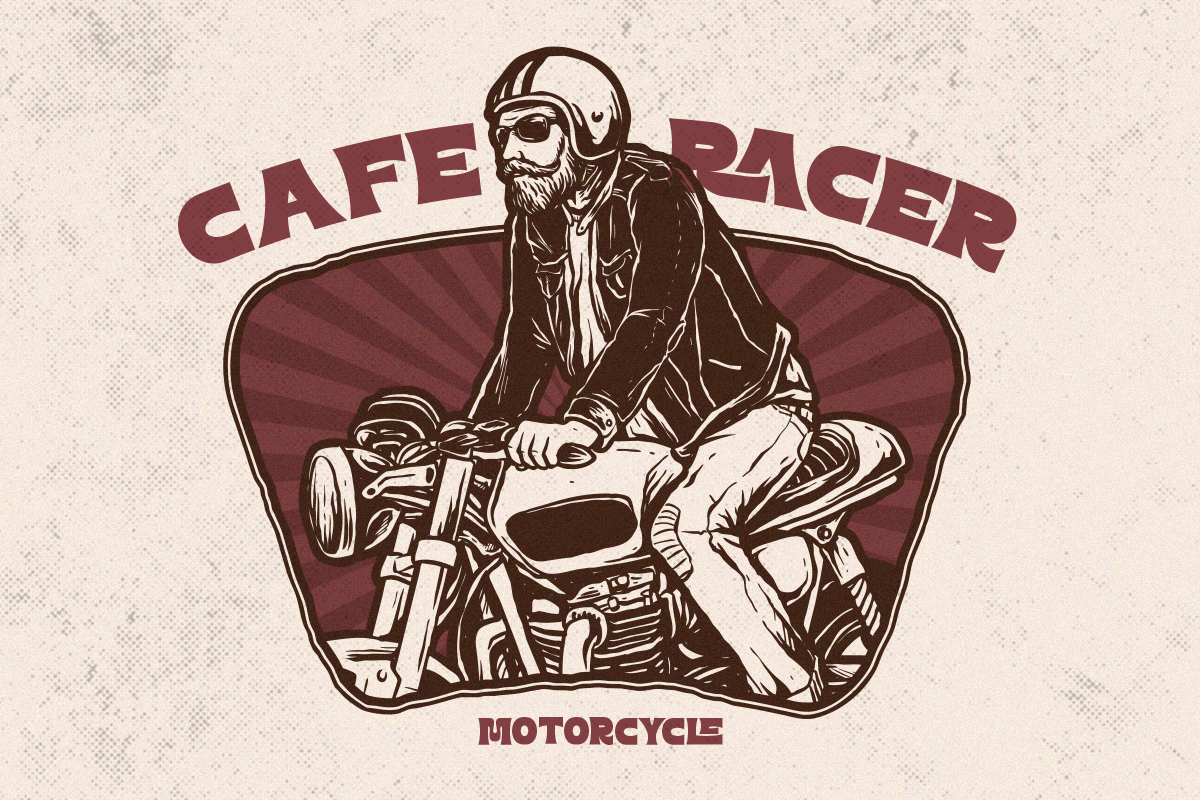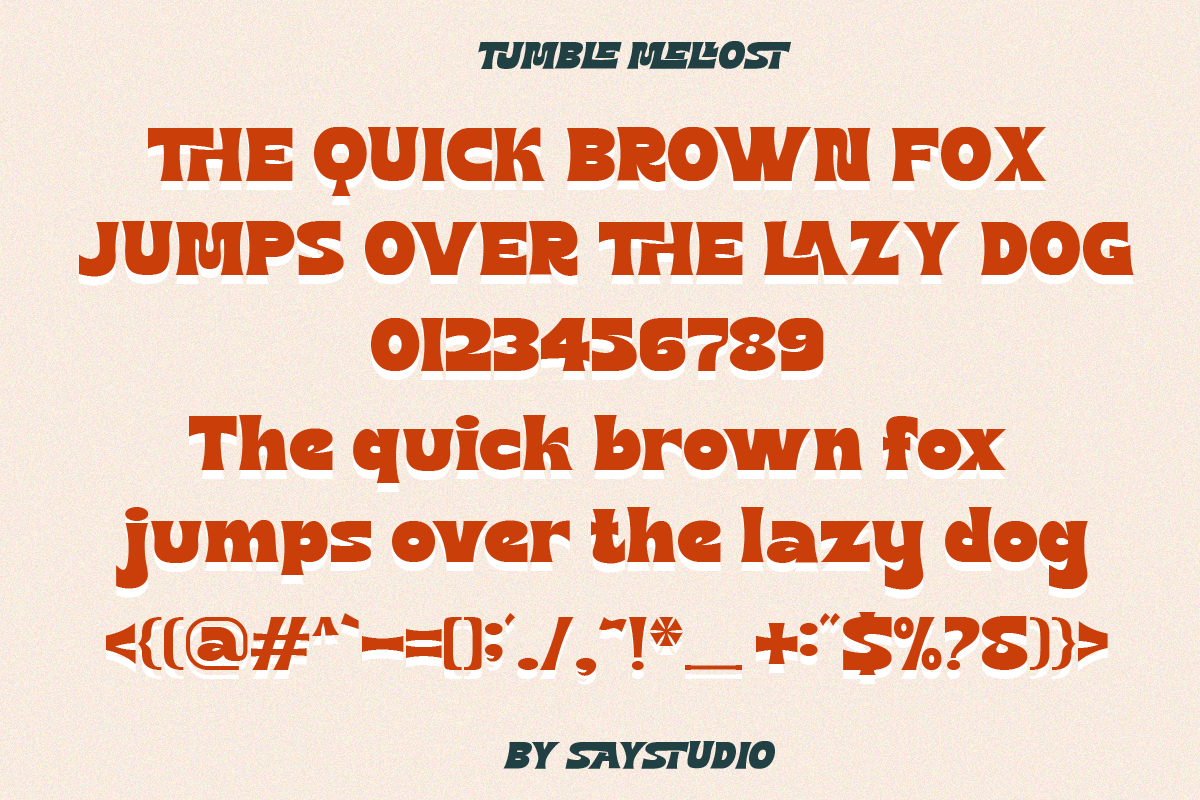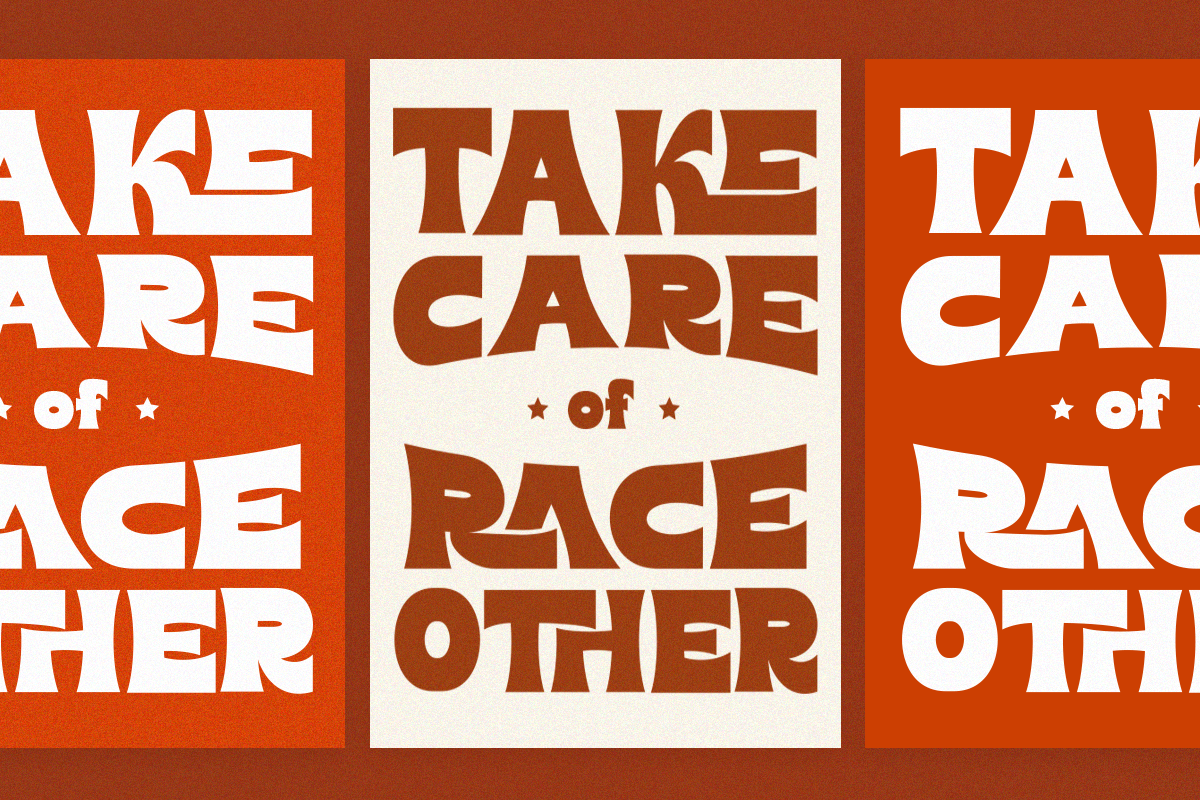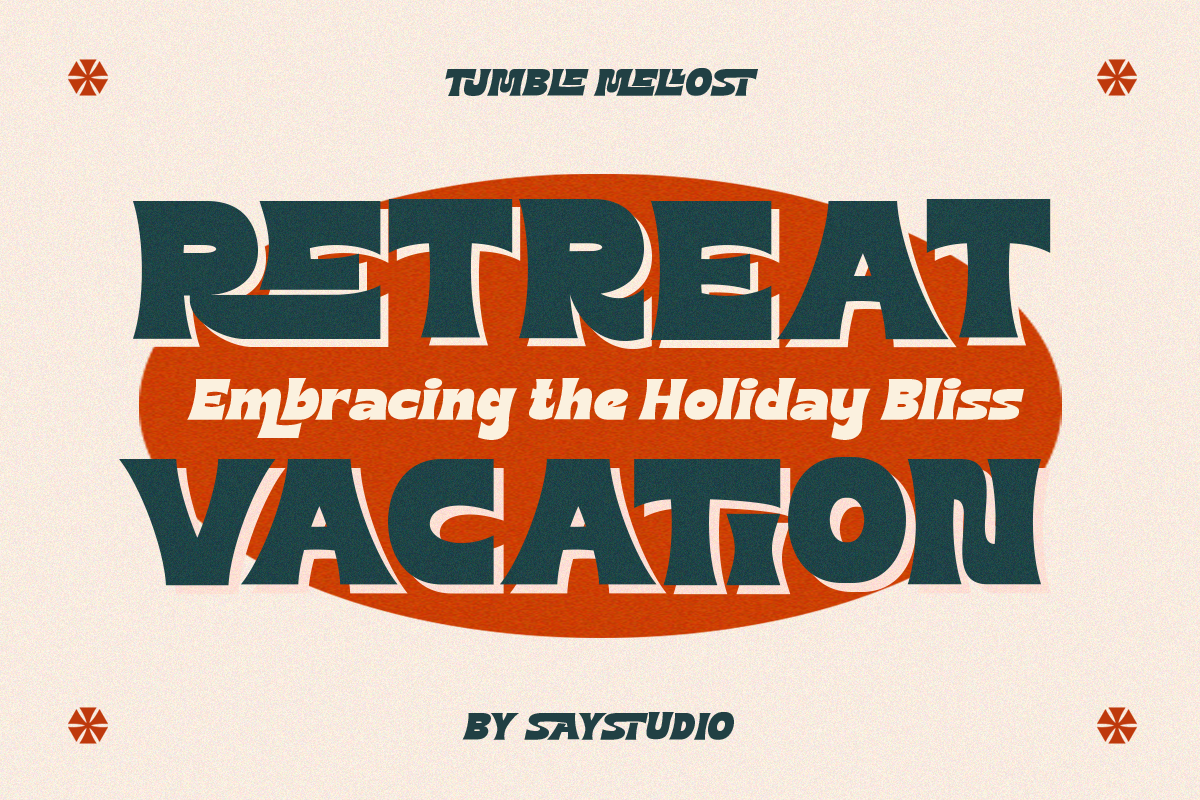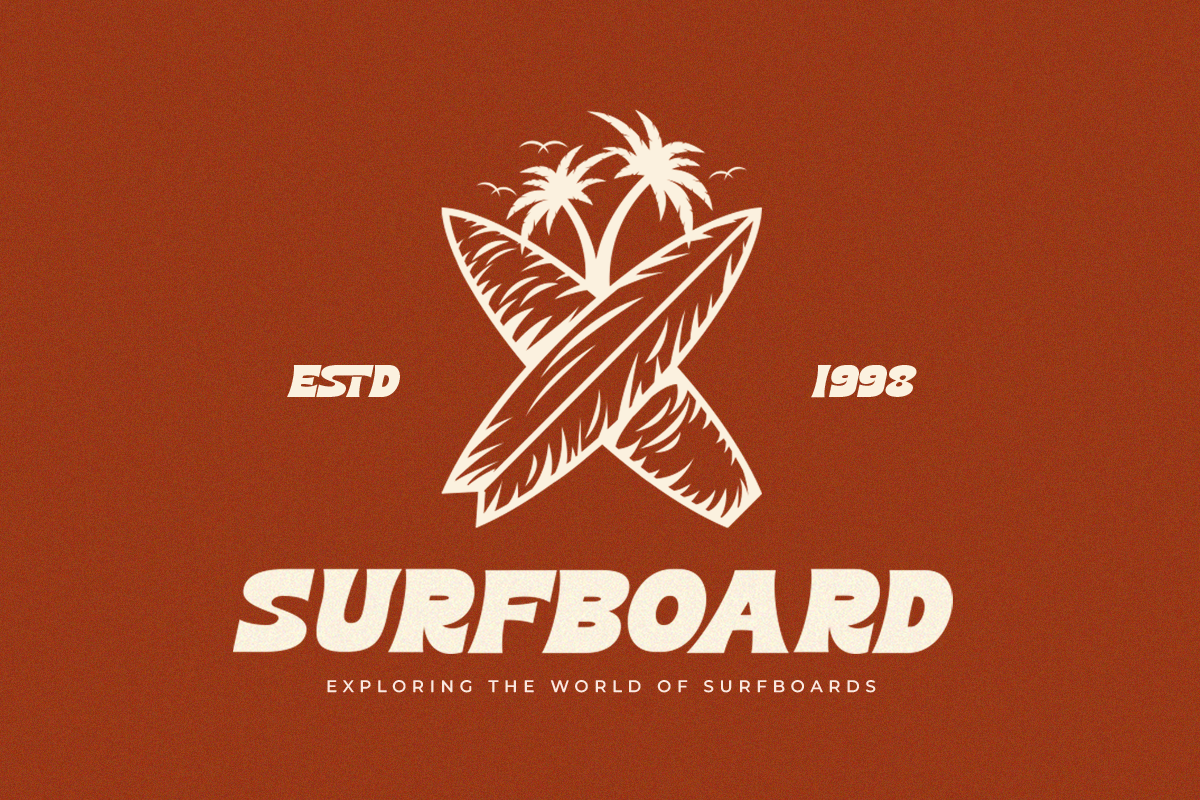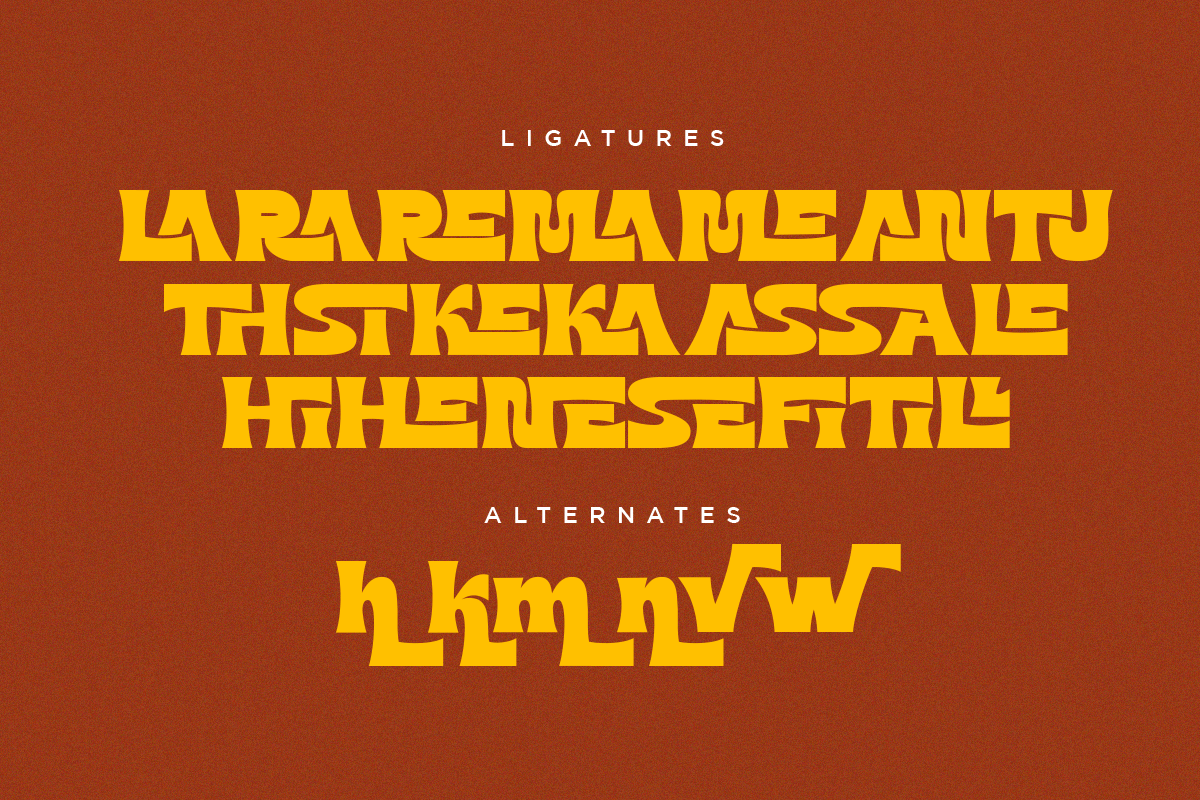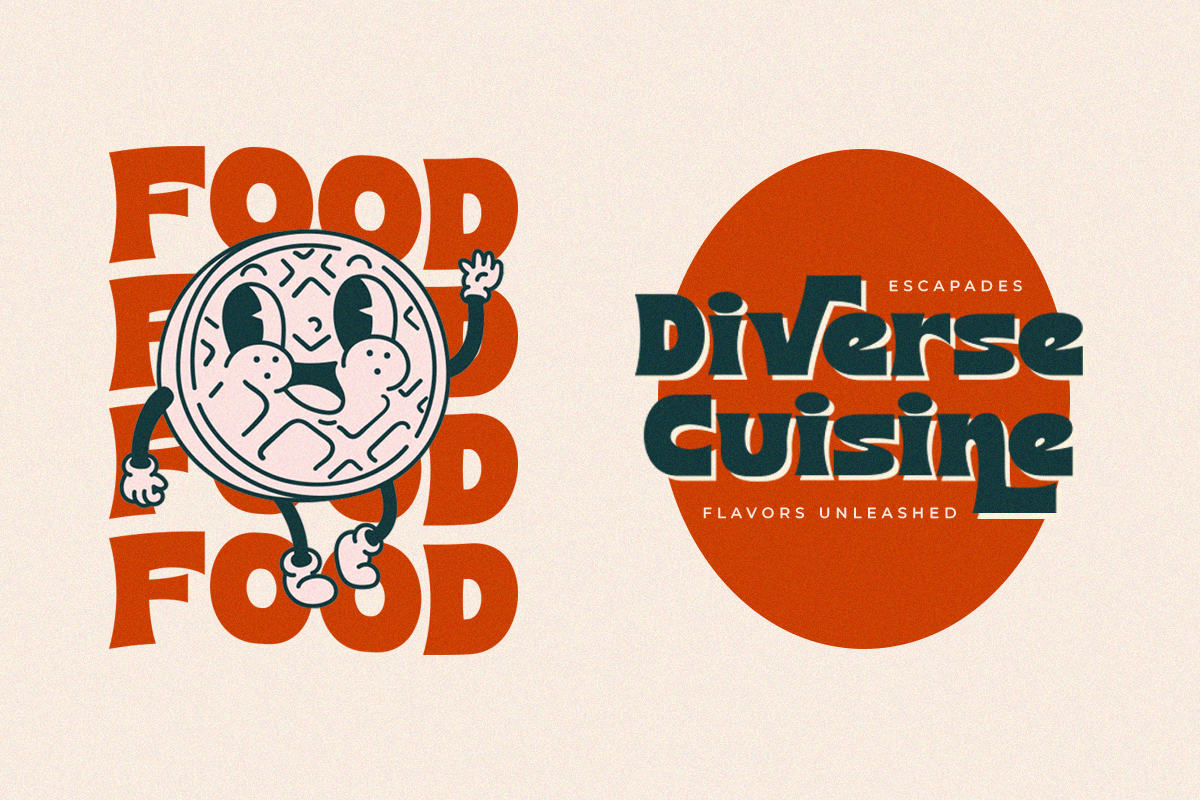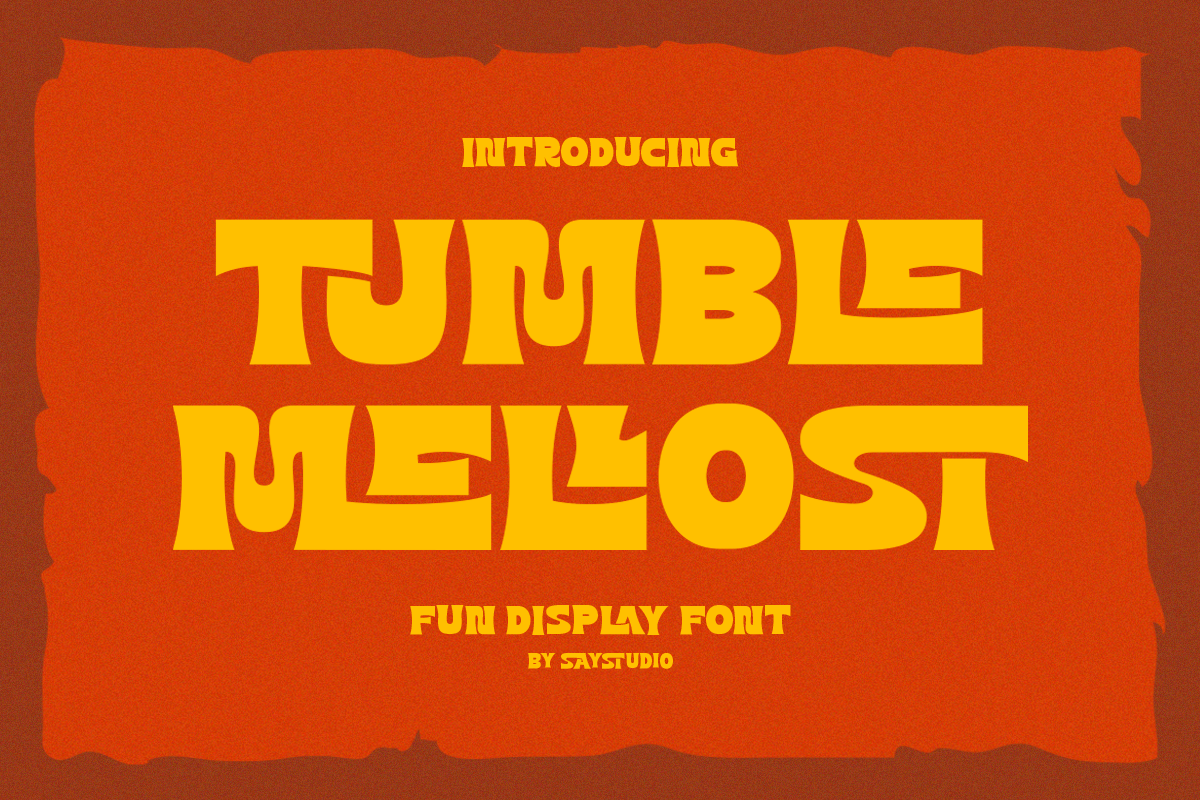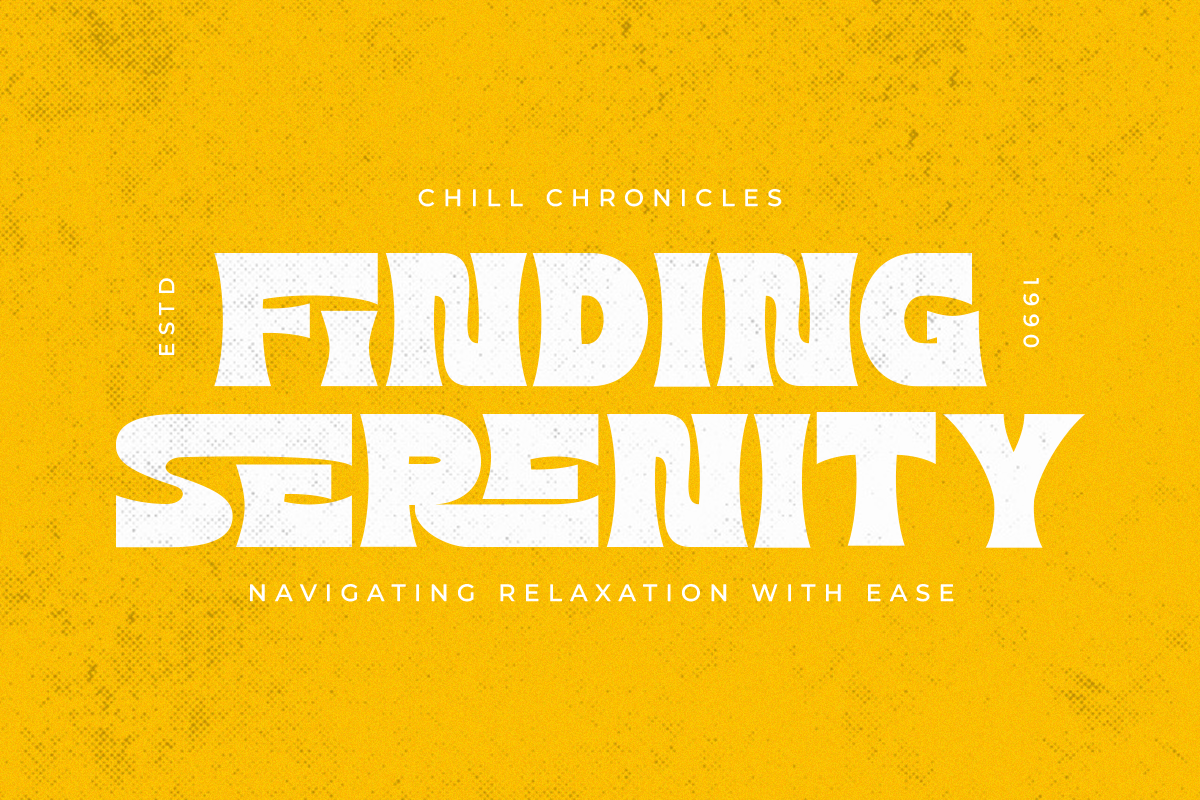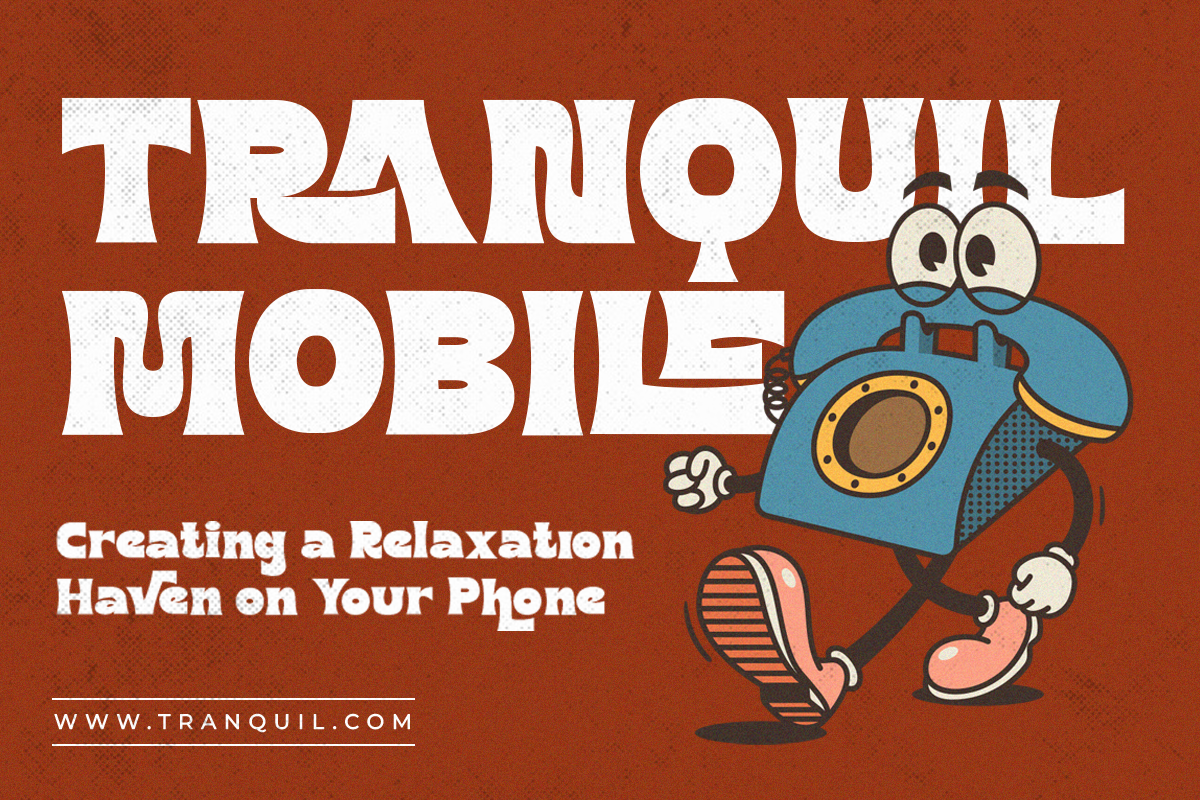
Tumble Mellost - Fun Display Font
Introducing
Tumble Mellost, our new and fun font collection. It combines modern, playful, and formal together. It contains so many alternates and ligatures that you can use it for more fun on your projects.. The Characteristic of Brice are in the small bouncy serif with a dynamic contrast, like h,k,m,n,v,w, etc. Perfect for Logotype, Caption, & Header.
Tumble Mellost font is ideal for branding projects or packaging that need a quirky and playful feel.